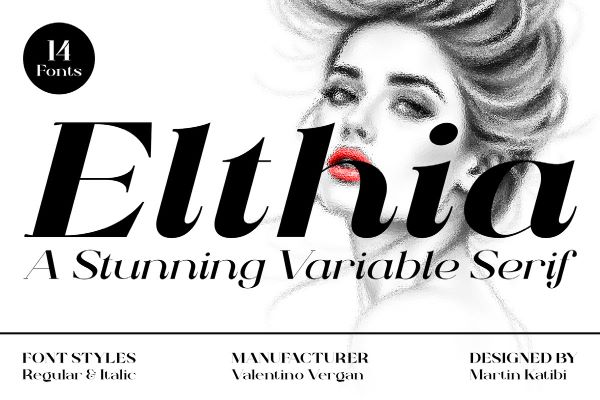
Elthia Font
Elthia by Valentino Vergan is a free high-contrast variable serif font that brings together classical elegance and contemporary design sensibility in a single, technically sophisticated package. Its wide, dramatic stroke contrast commands attention across editorial layouts, branding identities, advertising campaigns, packaging, and social media graphics — anywhere a headline needs to feel simultaneously refined and visually bold. A personal use version is available free on Behance, with the full variable family available via MyFonts, Creative Market, and FontBundles.